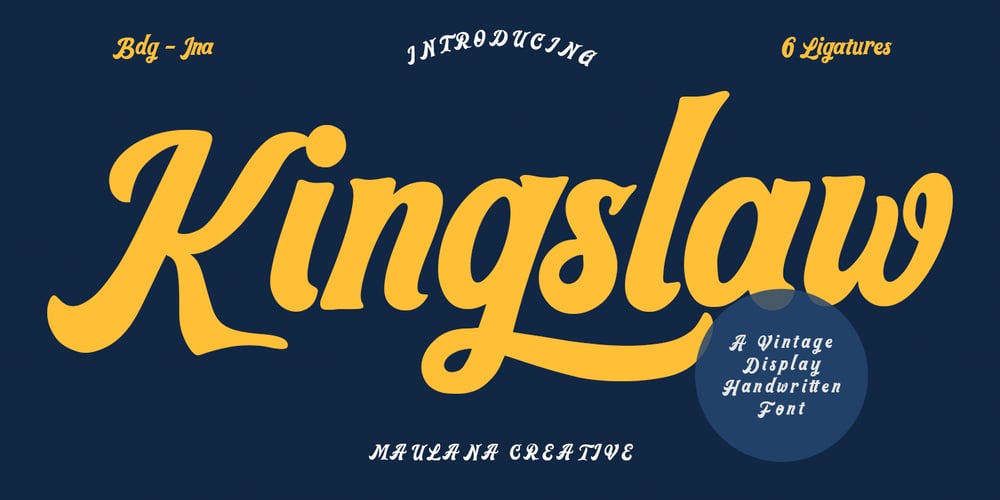
Kingslaw Font Family was designed by Gilang Maulana and published by Maulana Creative. Kingslaw contains 1 styles and family package options. Kingslaw is a retro display script font. With Bold contrast stroke, fun character with a bit of ligatures and alternates. To give you an extra creative work. Kingslaw font support multilingual more than 100+ language. This font is good for logo design, Social media, Movie Titles, Books Titles, a short text even a long text letter and good for your secondary text font with script or signature. Make a stunning work with Kingslaw font. Cheers, MaulanaCreative